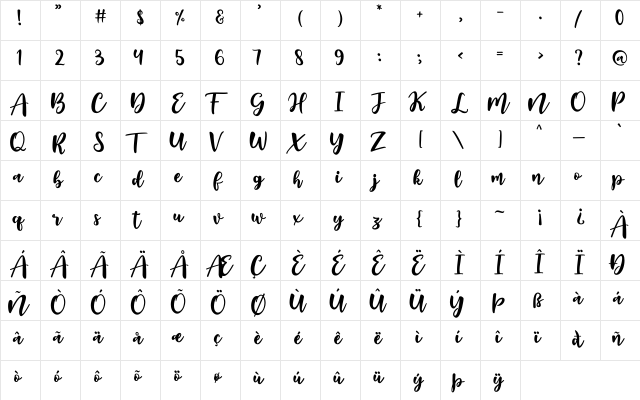
Fall in Autumn Regular in-Autumn-Regular Font Preview
Fall in Autumn Regular in-Autumn-Regular
Fall in Autumn Regular in-Autumn-Regular Font Details
Design Context for Fall in Autumn Regular Typeface
Fall in Autumn Regular is a composed and adaptable typeface that performs quietly and consistently across a wide range of design contexts.